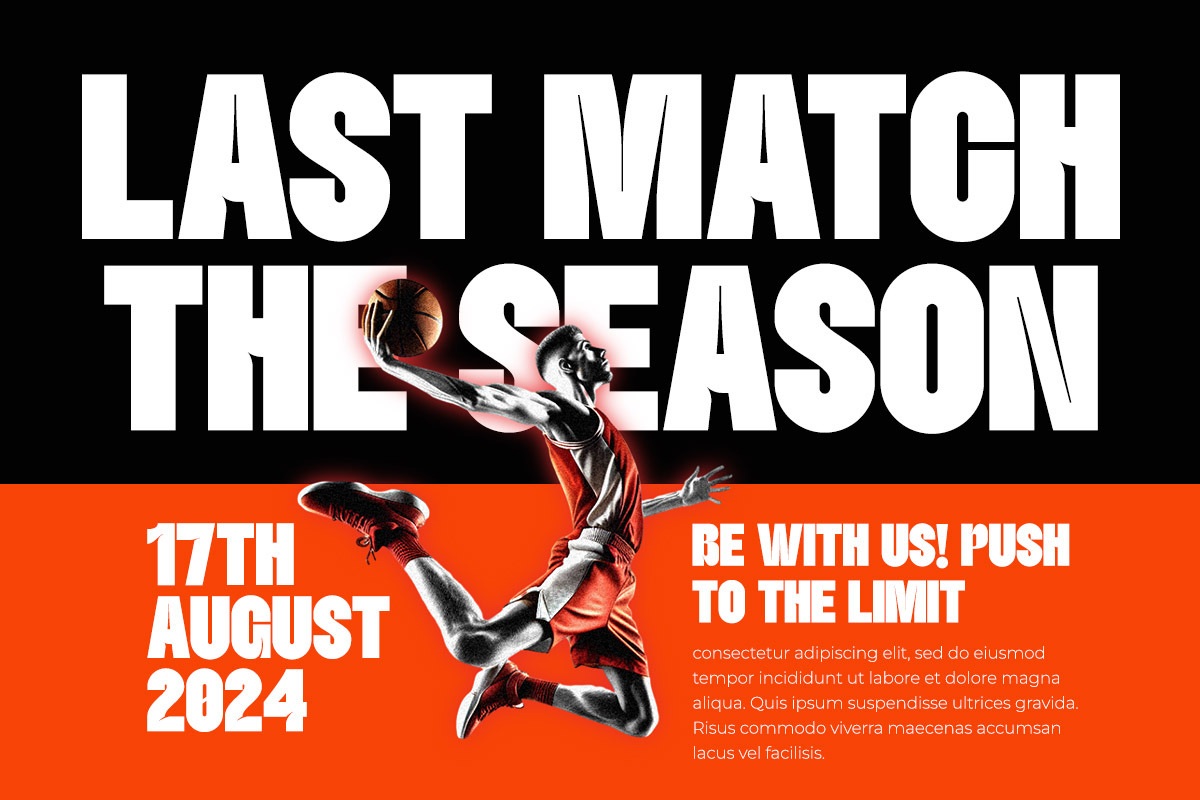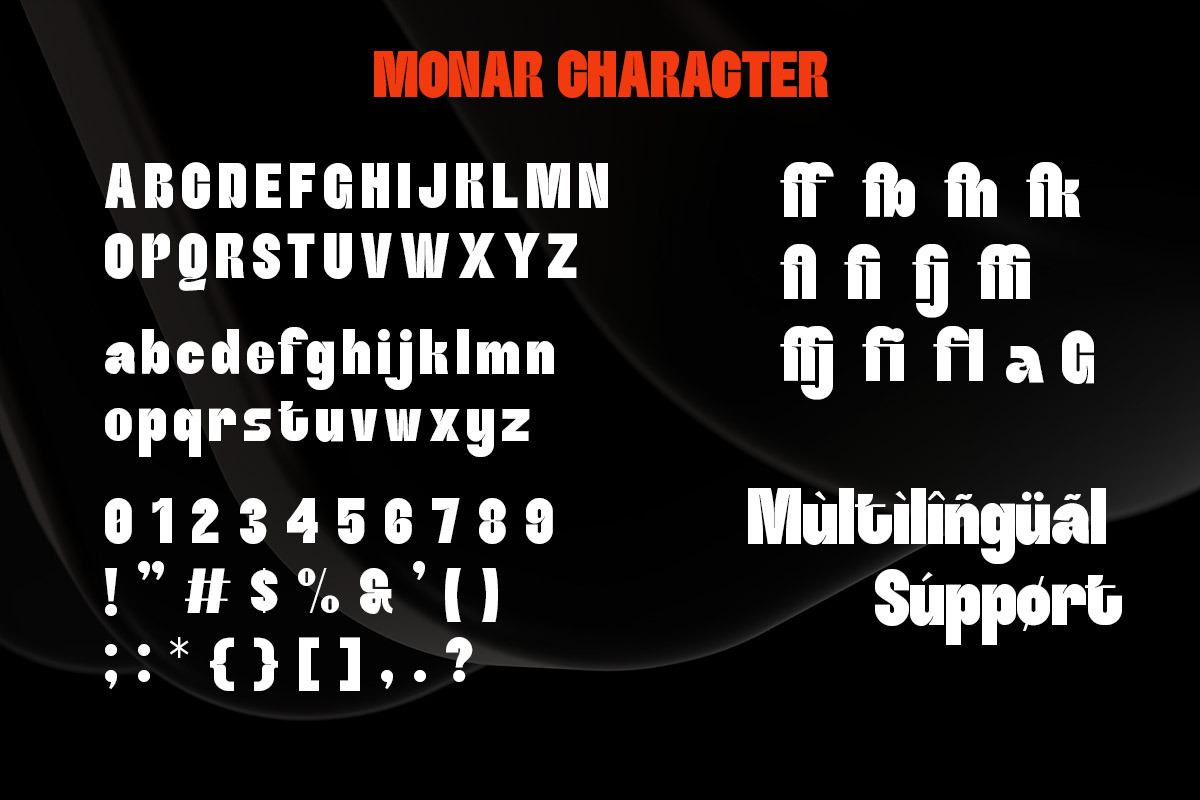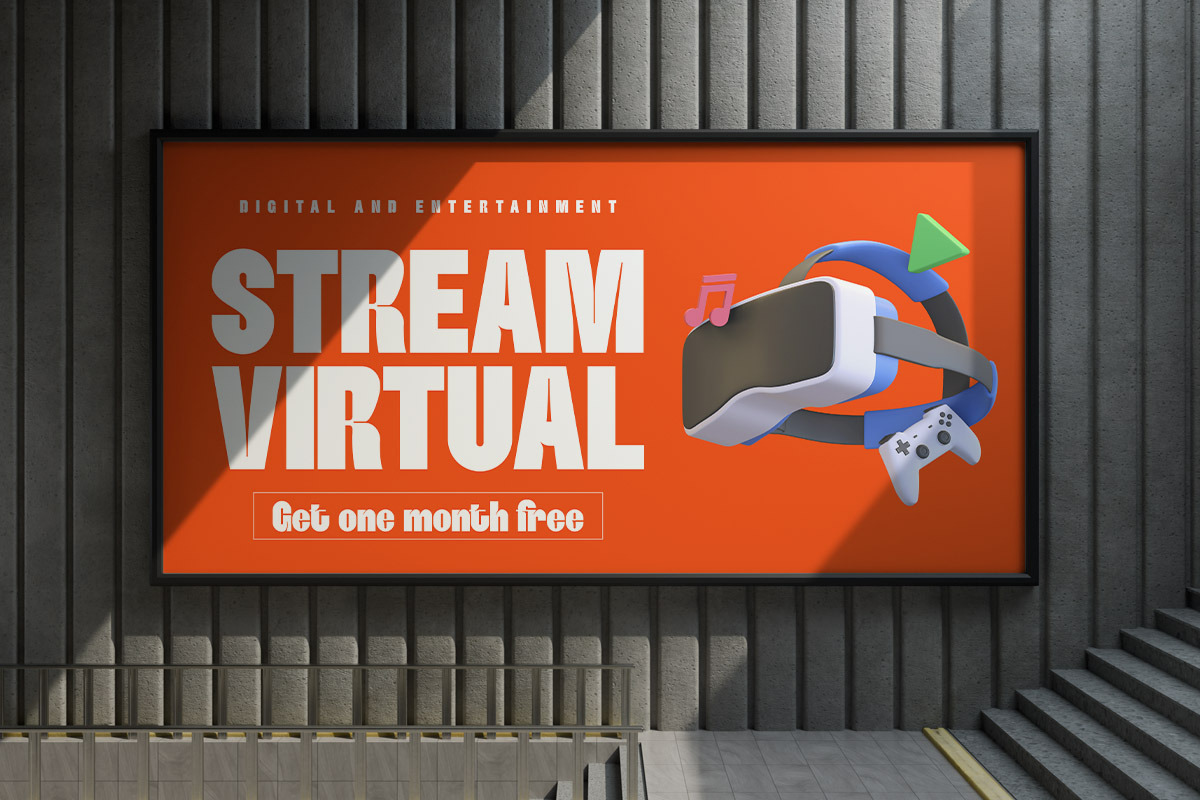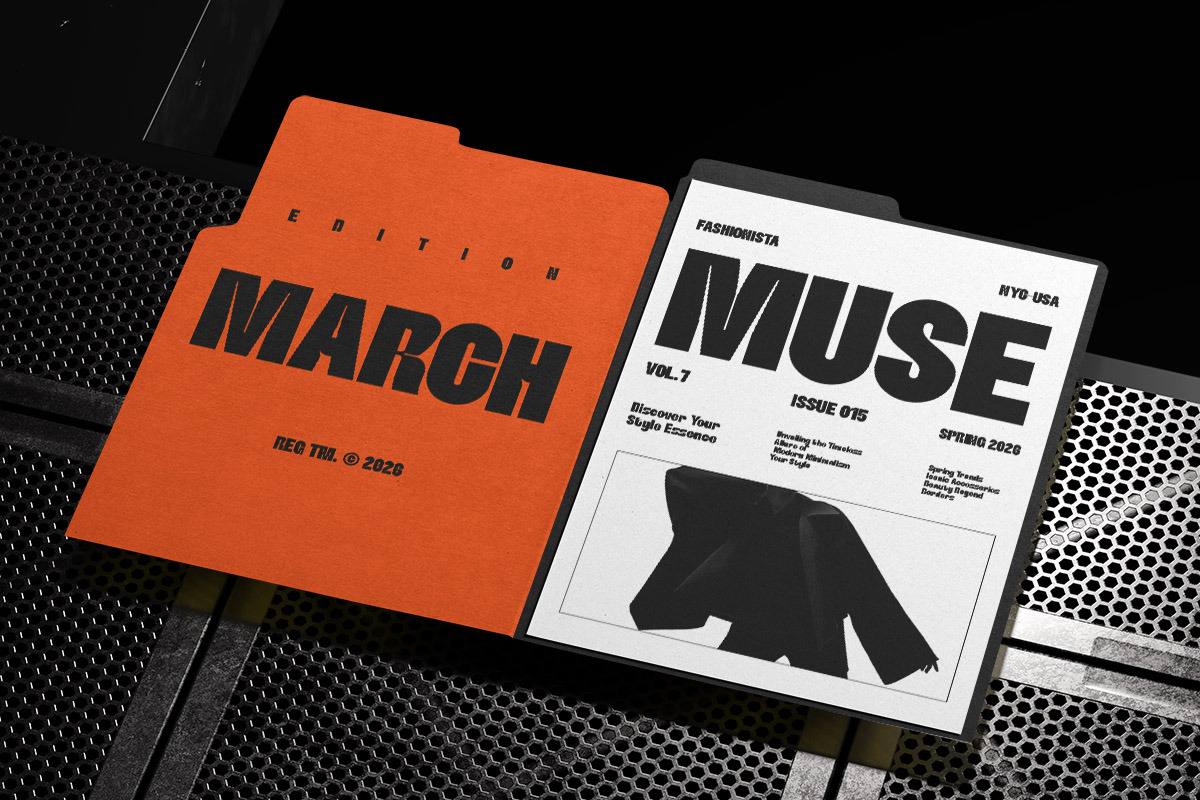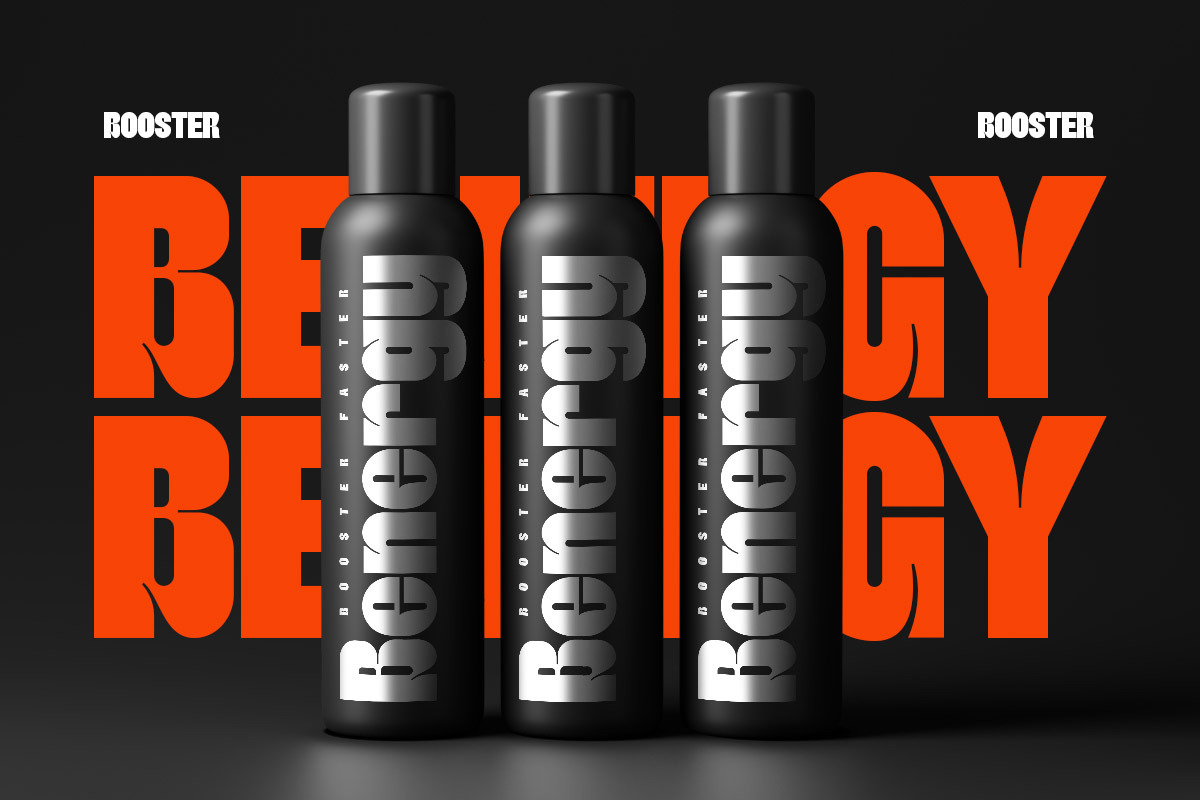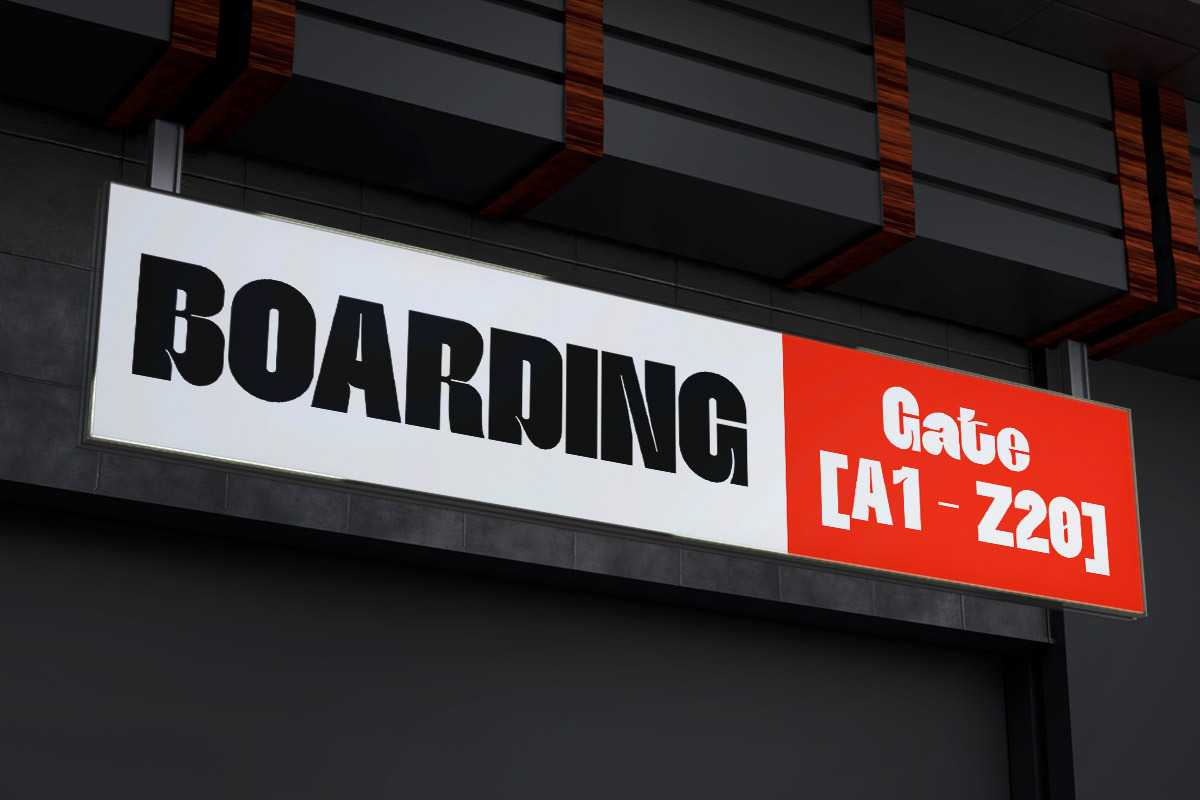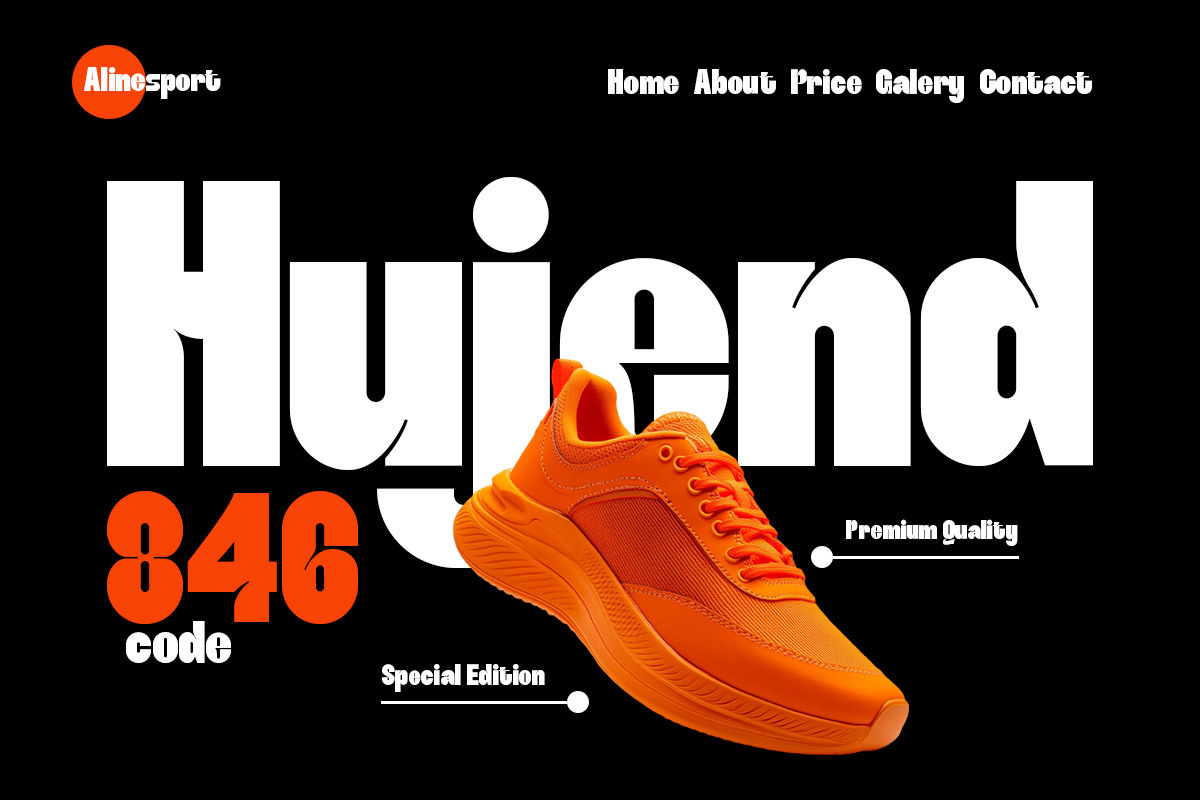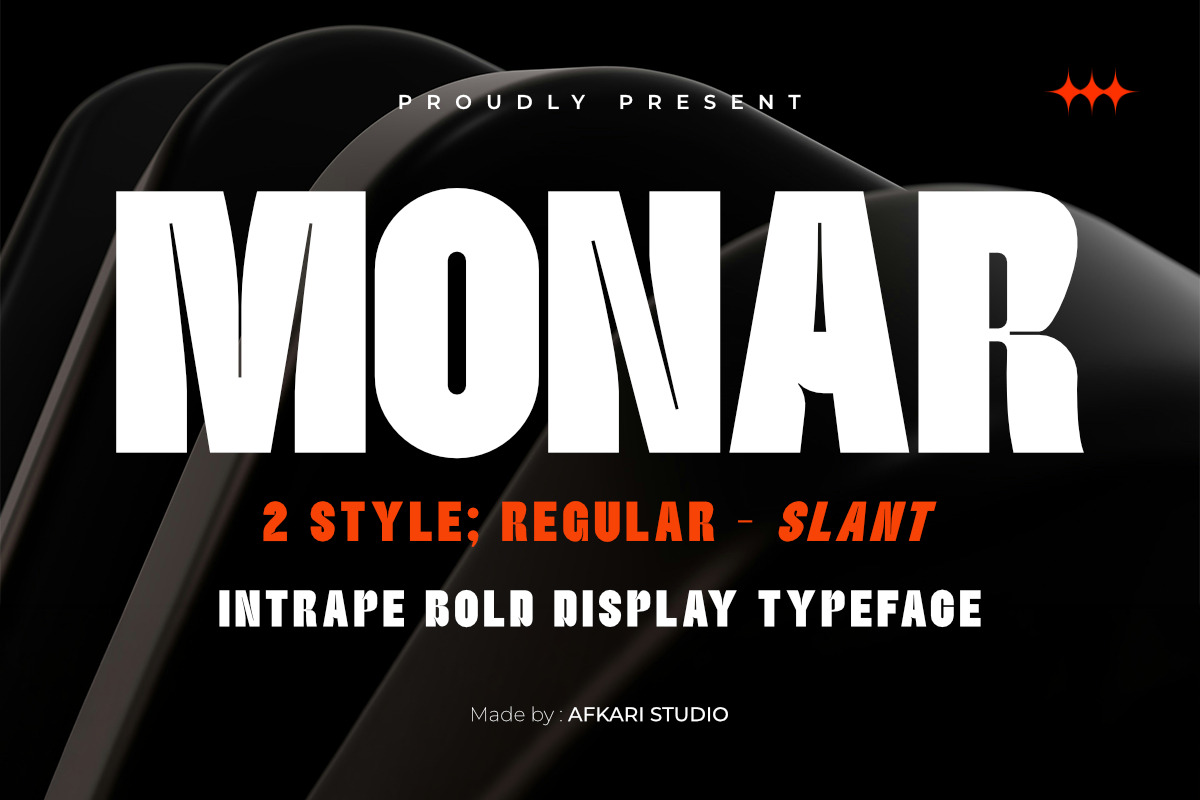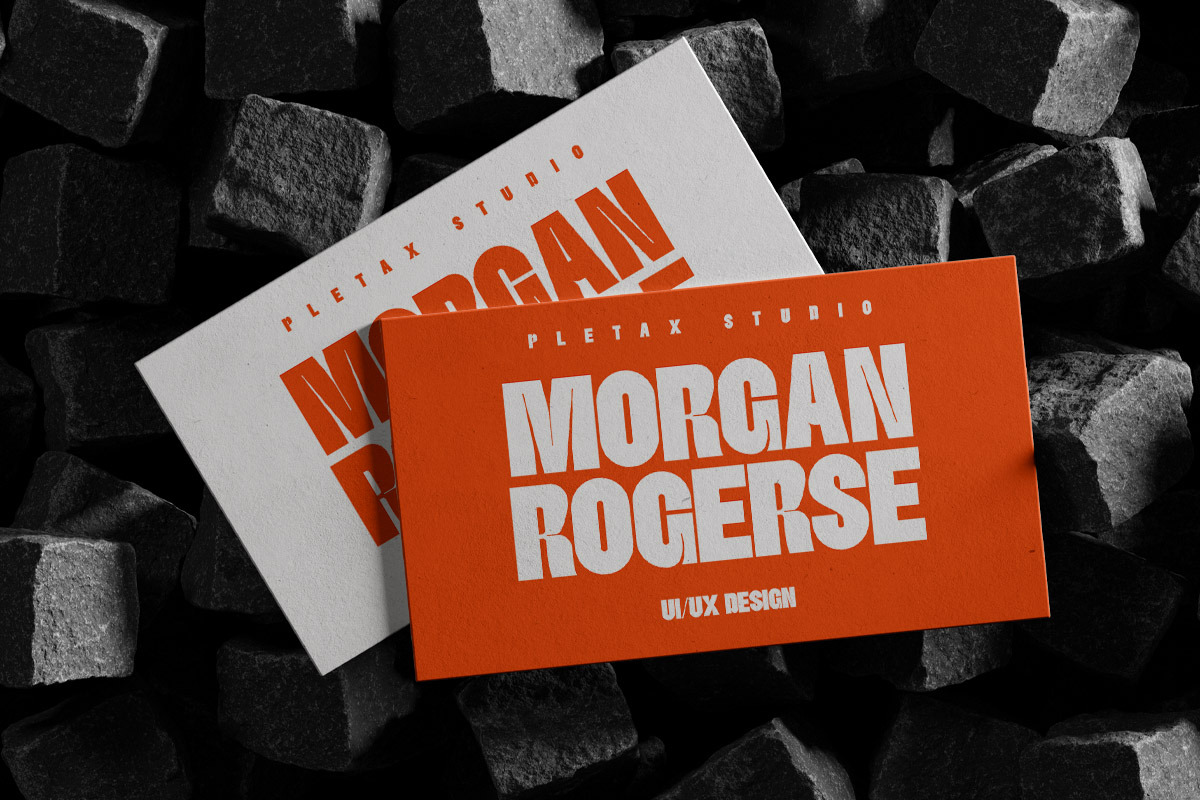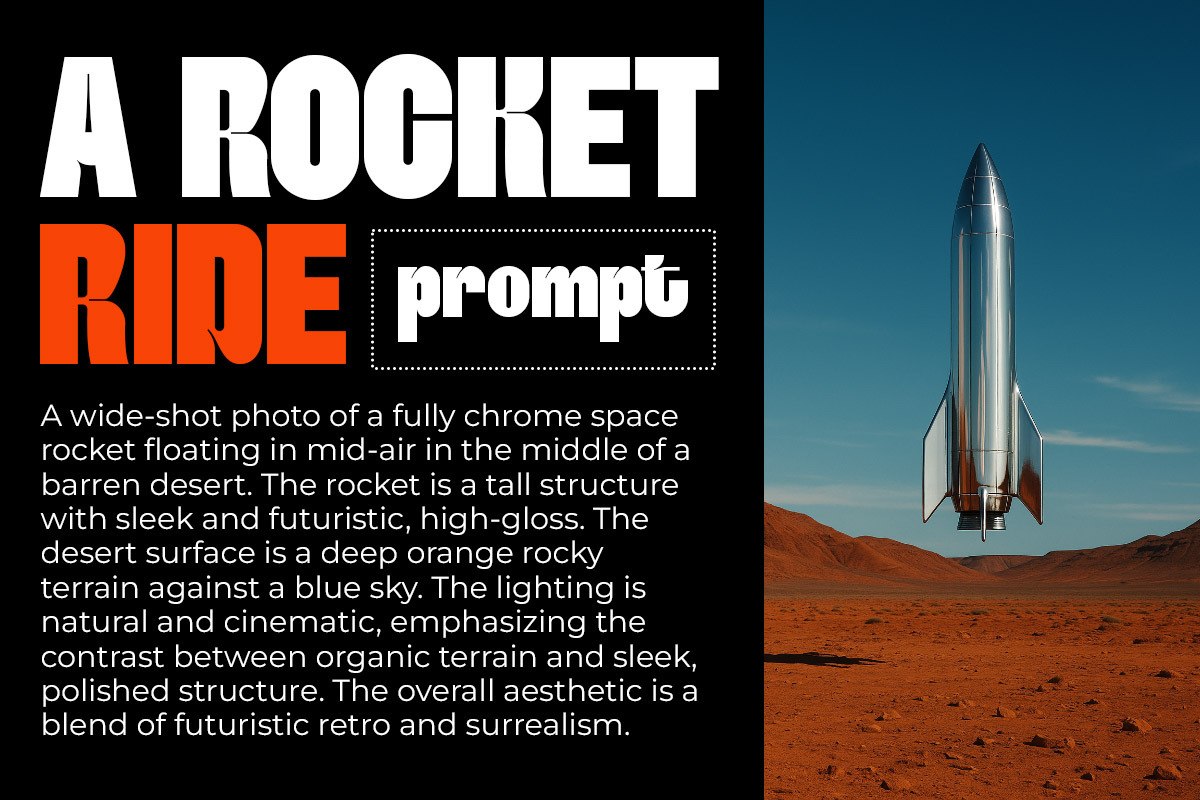
Monar - Bold Display Typeface
Monar is a bold display typeface crafted to deliver powerful visual impact, modern character, and outstanding readability. Designed for creators who want typography that stands out, Monar combines strong geometric forms with clean contemporary styling, making it an excellent choice for branding, headlines, logos, posters, packaging, advertising, social media graphics, and editorial design.
Featuring two versatile styles — Regular and Slant, Monar provides the flexibility to create both confident and dynamic typographic compositions. The Regular style offers a solid and commanding appearance, while the Slant version adds movement, energy, and a modern edge to your designs.
Built for professional designers, creative agencies, content creators, and branding specialists, Monar delivers a bold visual presence without sacrificing clarity. Its carefully crafted letterforms make it highly effective for large-scale typography, attention-grabbing headlines, and impactful brand identities.
Whether you're designing a cutting-edge technology brand, sports campaign, streetwear collection, gaming project, music poster, product packaging, or digital advertisement, Monar helps your message capture attention instantly.
Highlighted Features:
- Uppercase, Lowercase, Number, and Punctuation
- Special Alternates and Ligatures
- Bold Display Typeface
- Mültîlíñgúãl Sùppört for; ä ö ü Ä Ö Ü ß ¿ ¡
Monar is more than just a typeface—it's a powerful visual tool designed to elevate your creative projects with bold personality and modern sophistication.